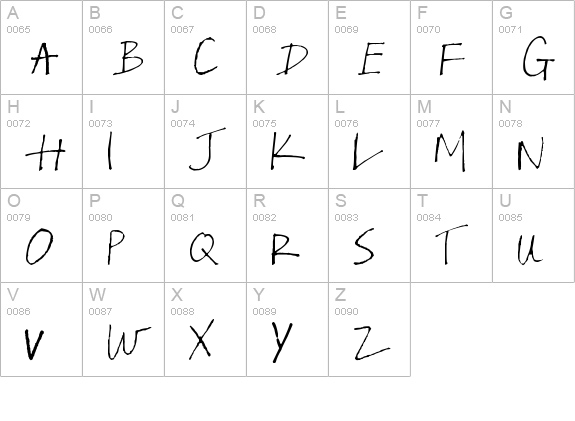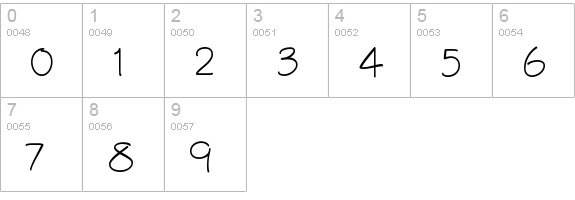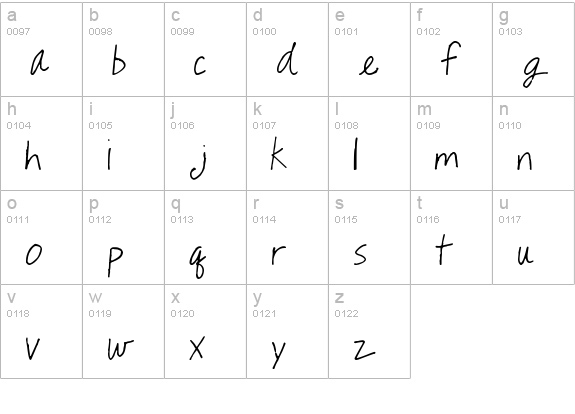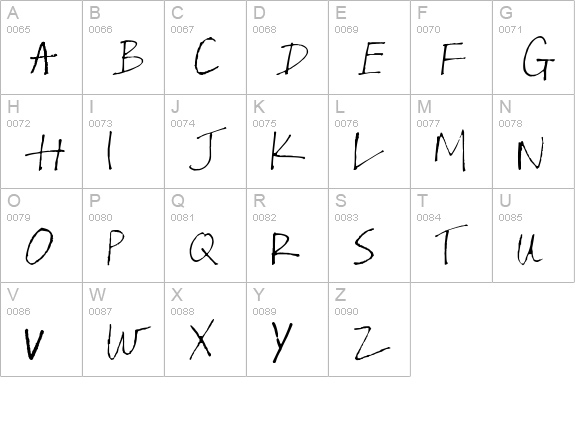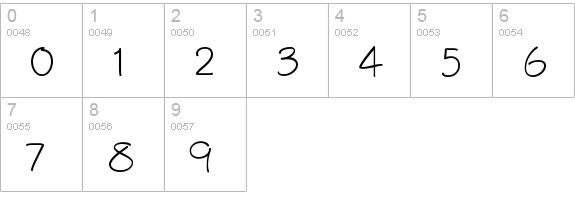
fontastic Font Details
Introducing Fontastic Font - a versatile and stylish typeface that is sure to make your designs stand out! This font is the perfect choice for a wide range of projects, from branding and advertising to invitations and social media graphics. With its modern and clean design, Fontastic Font adds a touch of sophistication to any project. Not only does Fontastic Font offer a wide variety of weights and styles to choose from, but it is also completely free to download! Yes, you heard that right - this amazing font is freely available at FontsMarket.com, allowing you to elevate your designs without breaking the bank. Whether you're a professional designer looking for a fresh new font to add to your collection or a hobbyist looking to spice up your projects, Fontastic Font is the perfect choice. Download it today and see for yourself the magic it can bring to your designs!